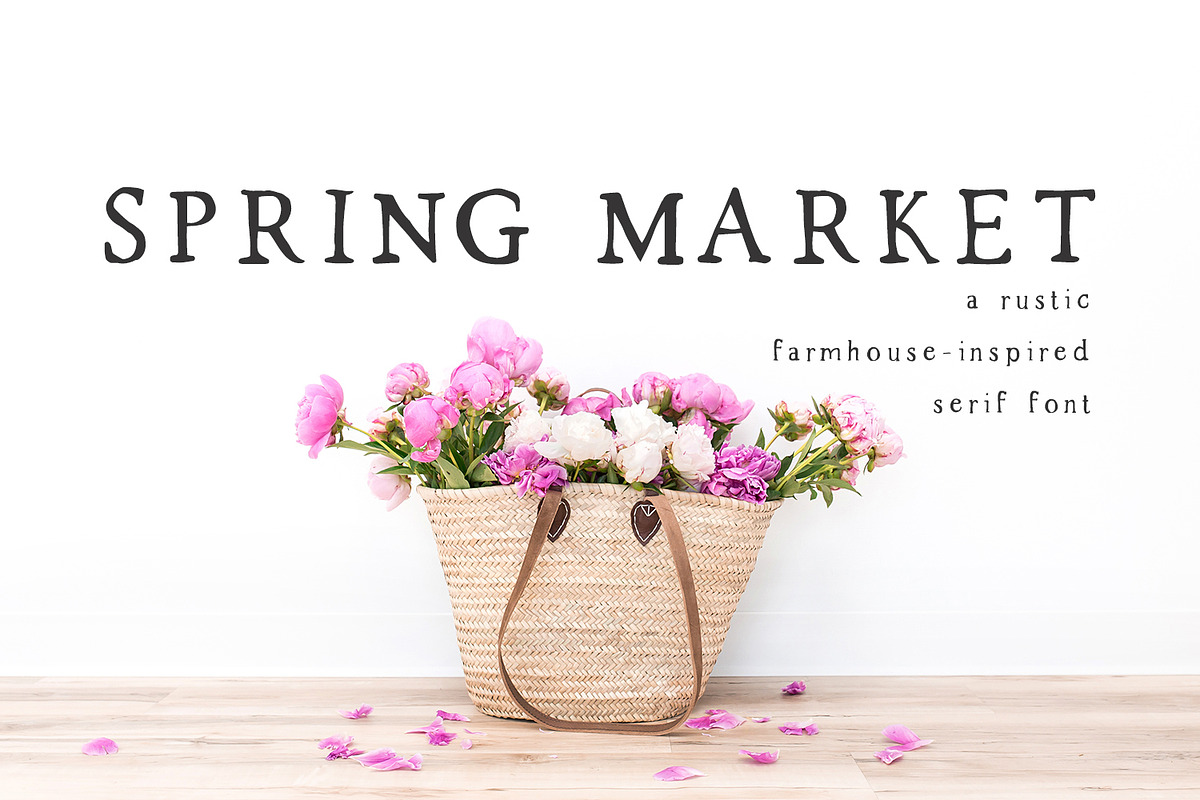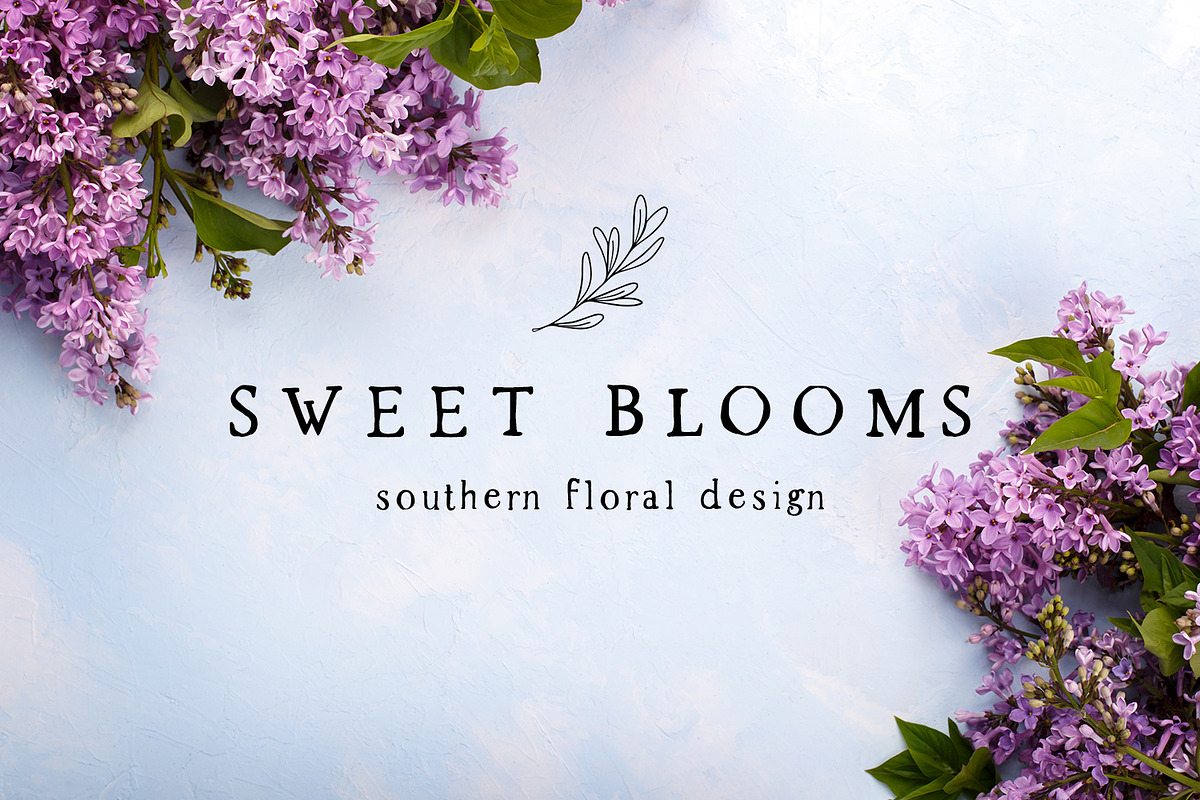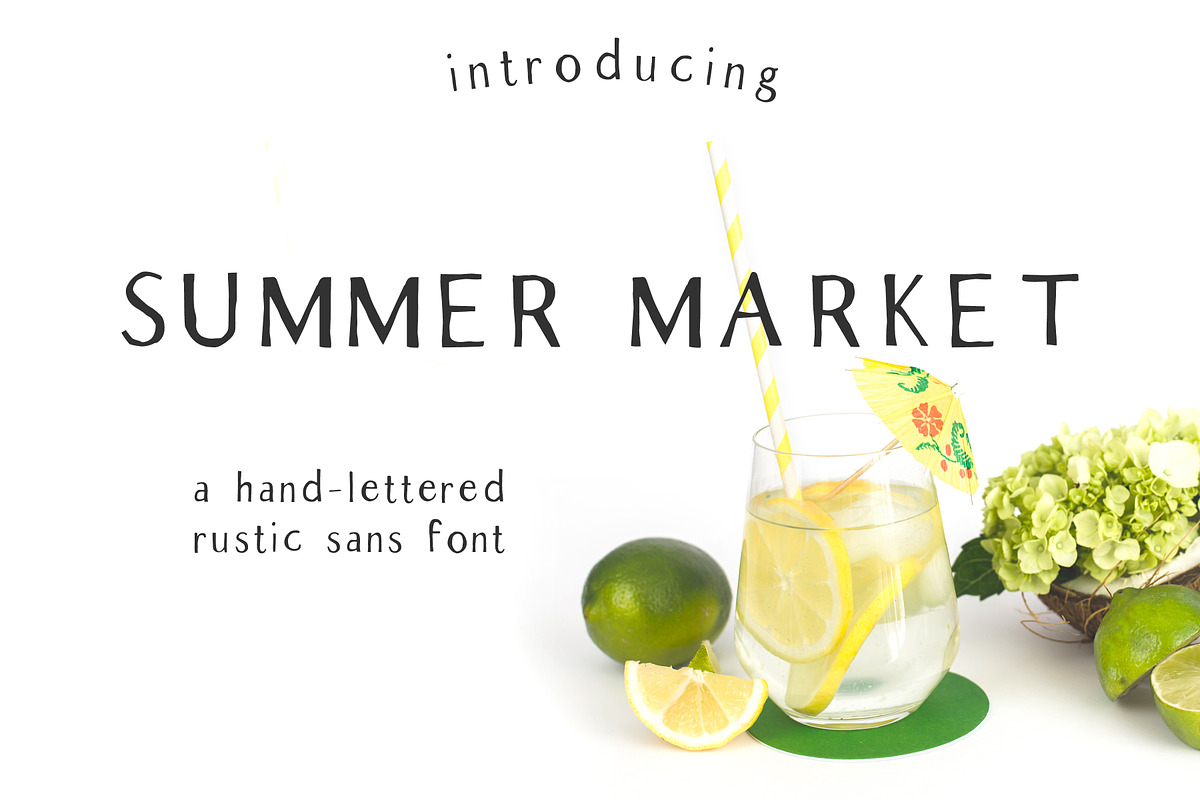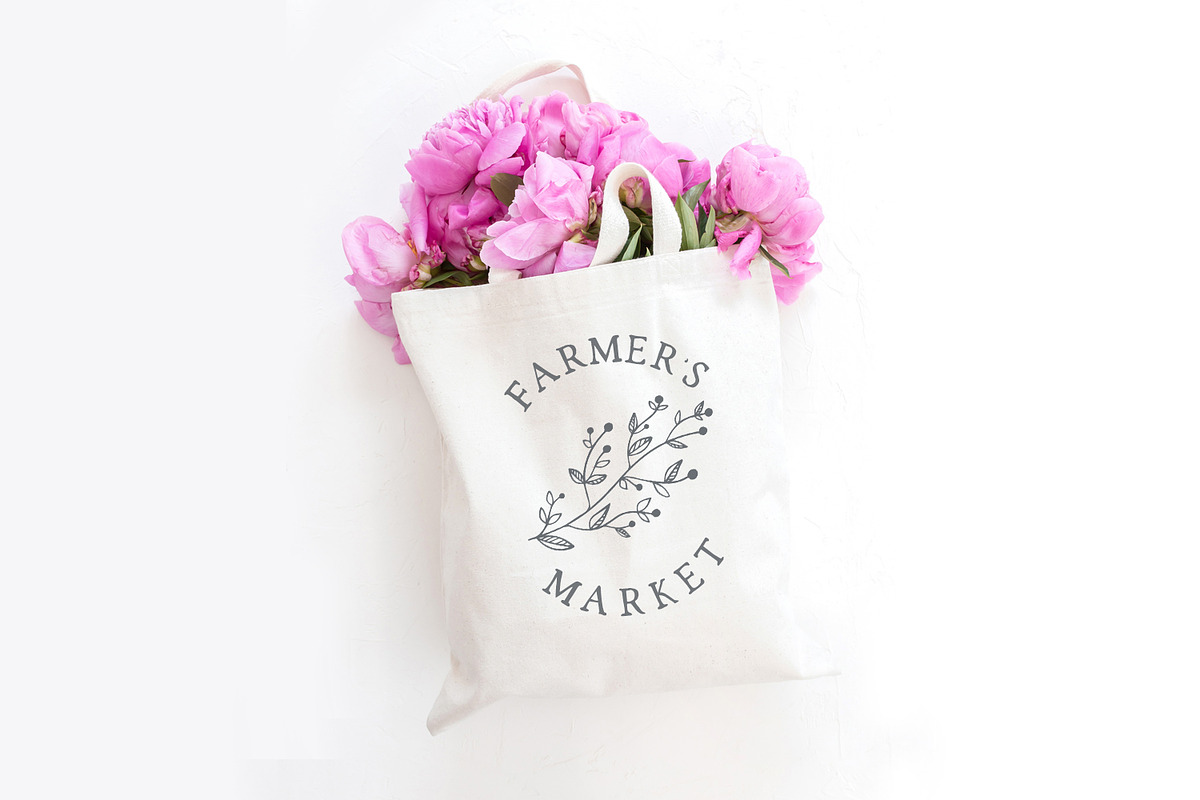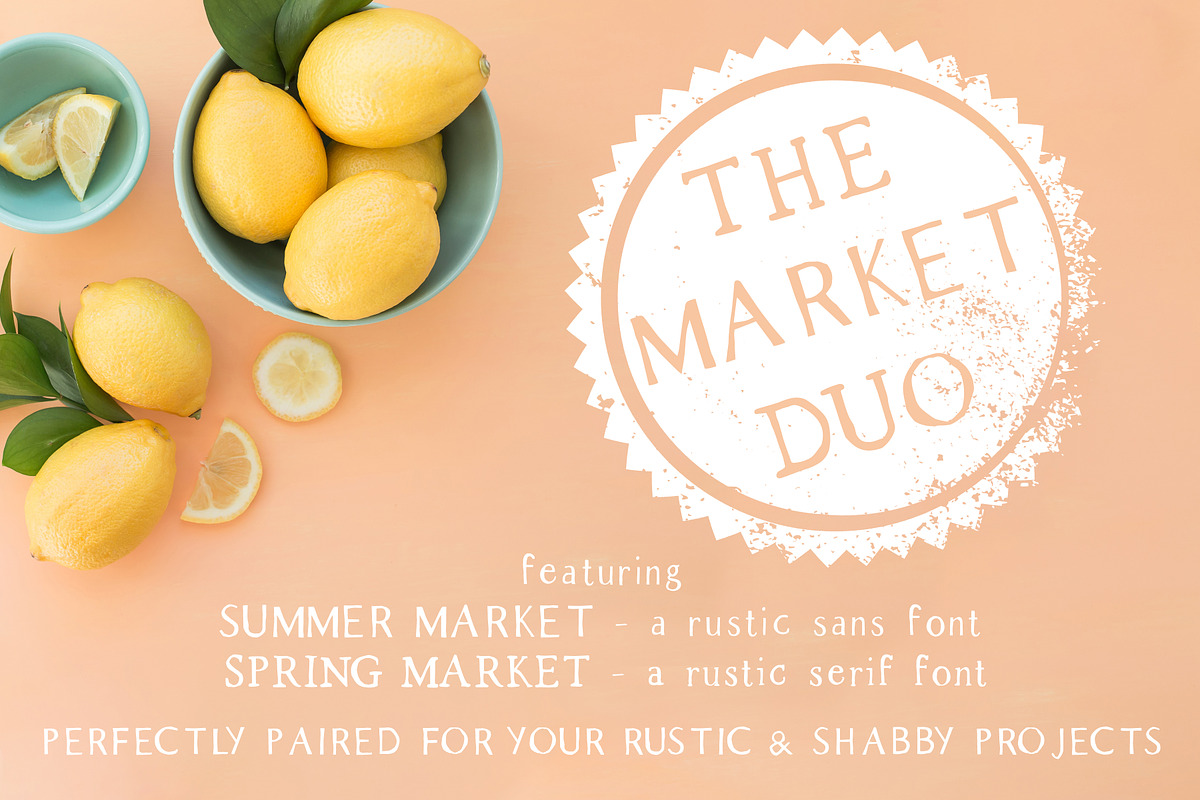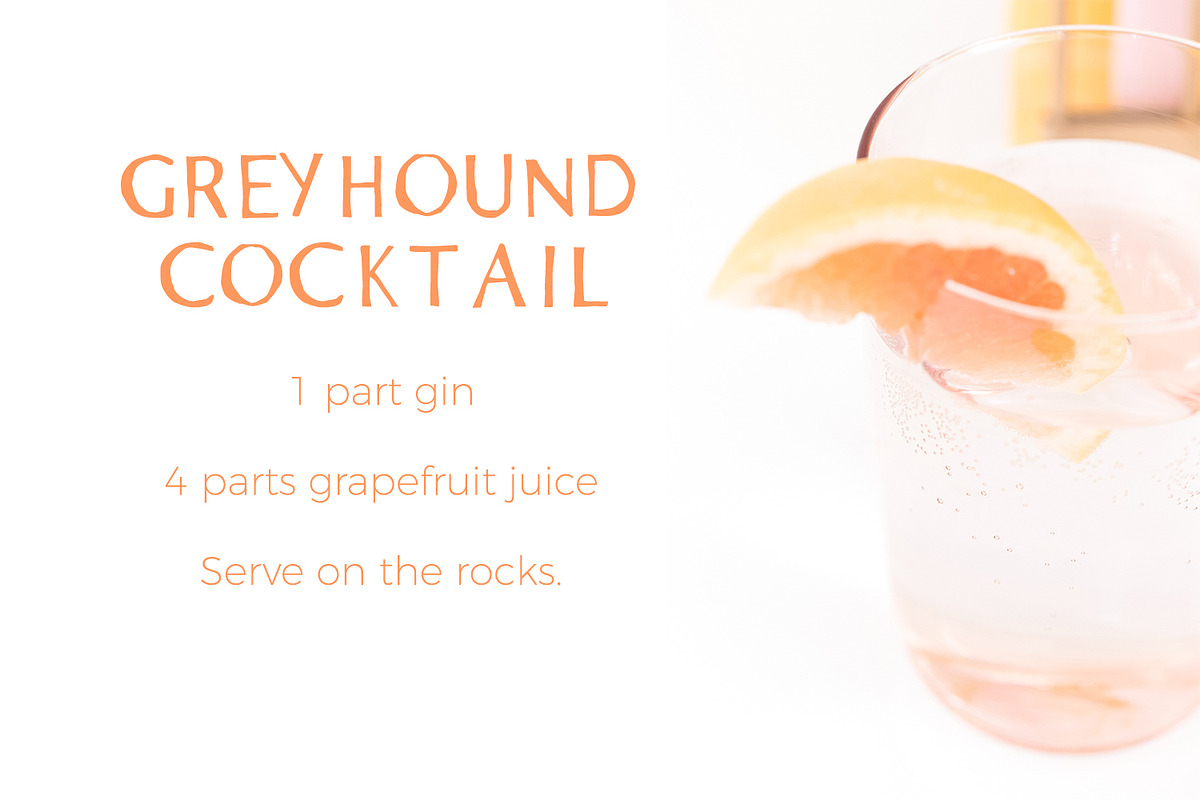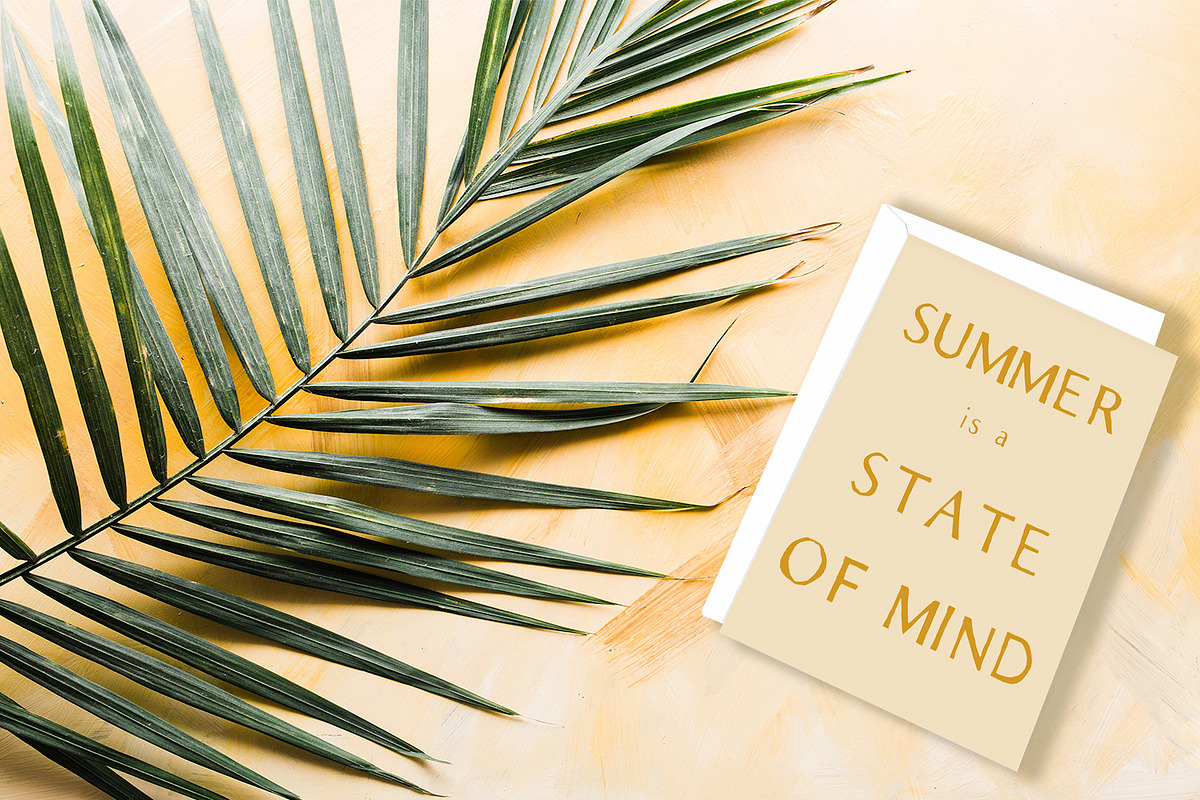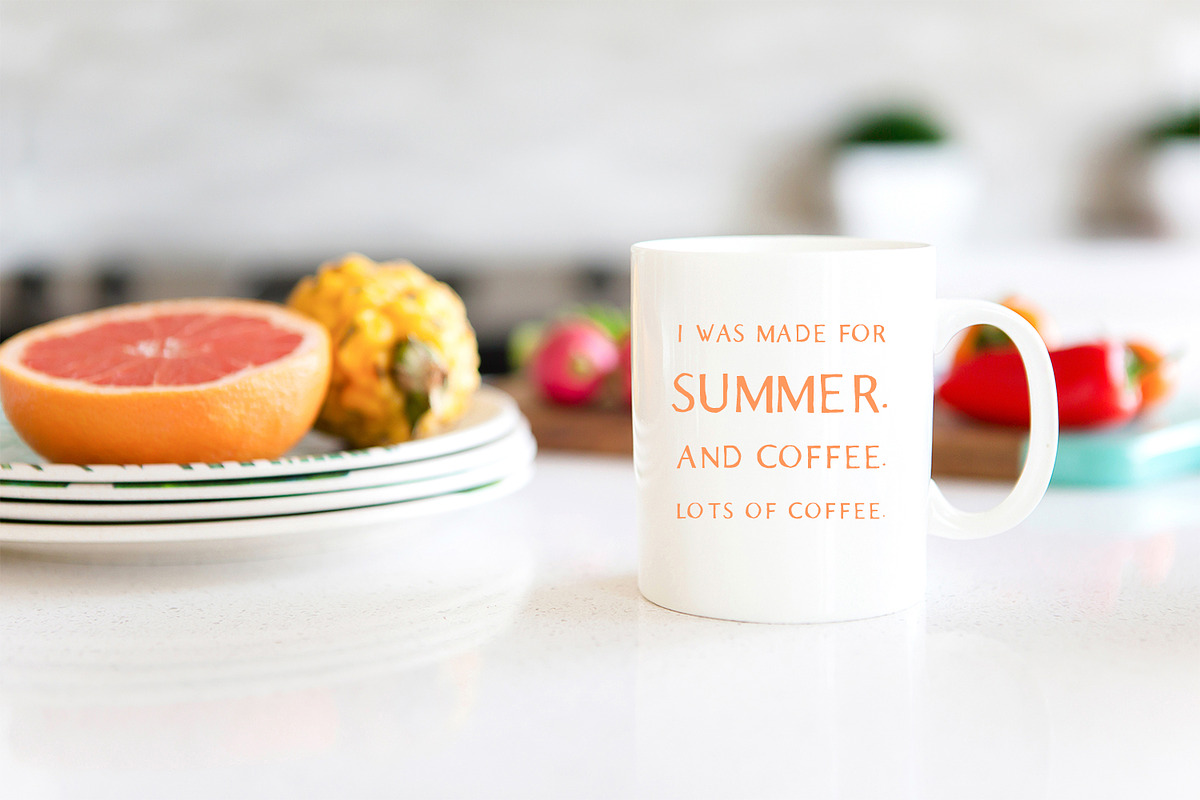
The Market Duo - Rustic Font
The Market Duo - Rustic Font by Beck McCormick is a font selected for branding, posters, packaging, typography.
- Spring Market ALP Regular
- Summer Market ALP Regular
Why The Market Duo - Rustic Font is worth a look
The Market Duo - Rustic Font by Beck McCormick fits naturally into Branding, posters, packaging, typography.